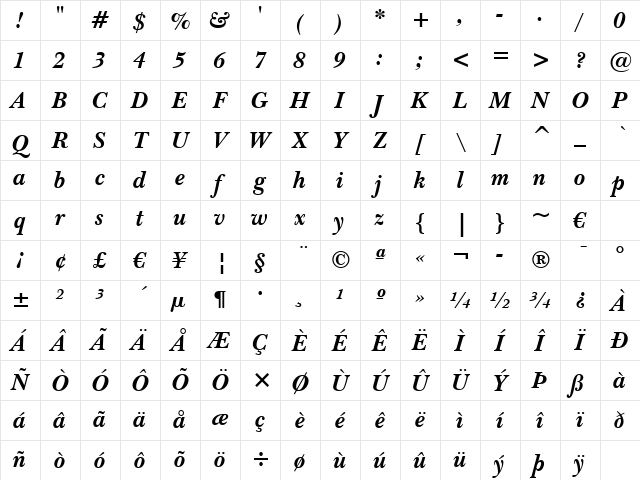
Baskerville BT Bold Italic
Design Context for Baskerville BT
Baskerville BT is a composed and adaptable typeface that performs quietly and consistently across a wide range of design contexts. The slanted form adds forward momentum and visual energy. Its bold stroke weight gives it real presence on the page.